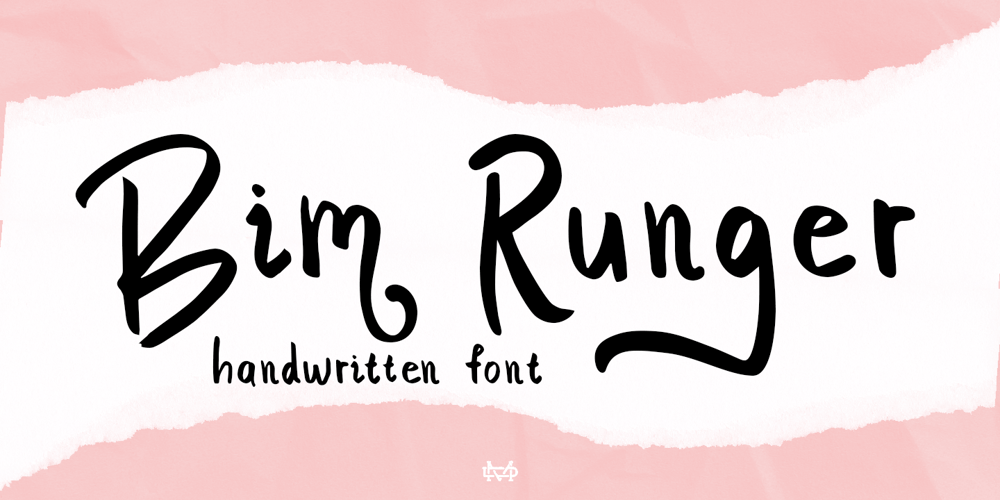
Bim Runger
Bim Runger font
Bim Runger Font Family was designed by madededuk and published by madeDeduk. Bim Runger contains 1 styles and family package options. Introducing Bim Runger is a realistic handwritten font come with alternative and ligature and will be perfect for book, title branding, product packaging, invitation, quotes, label, poster, logo etc.Feature Uppercase & Lowercase Number & Symbol International Glyphs Multilingual support Alternative Ligature Thanks so much for checking out my shop and feel free to drop us a message any time and follow my shop for upcoming updates